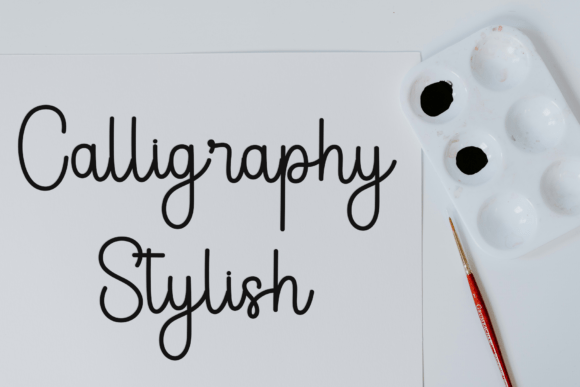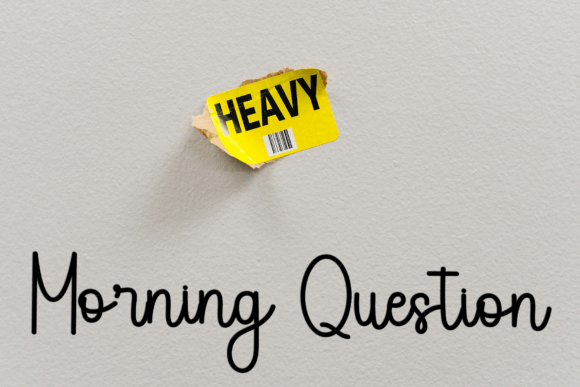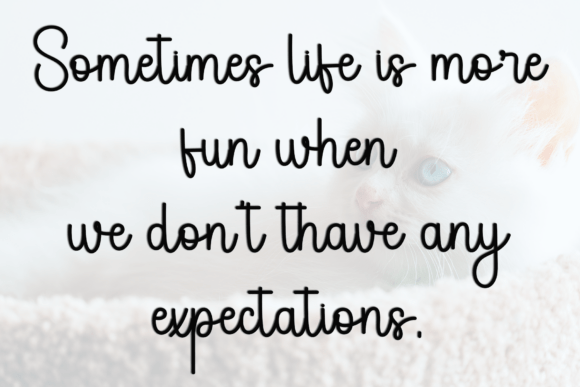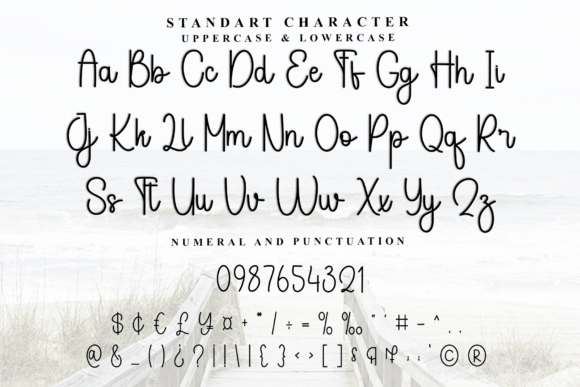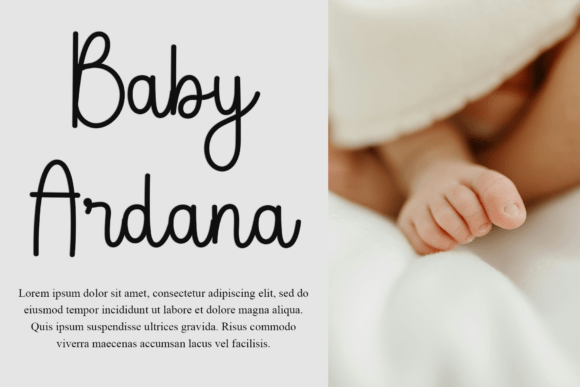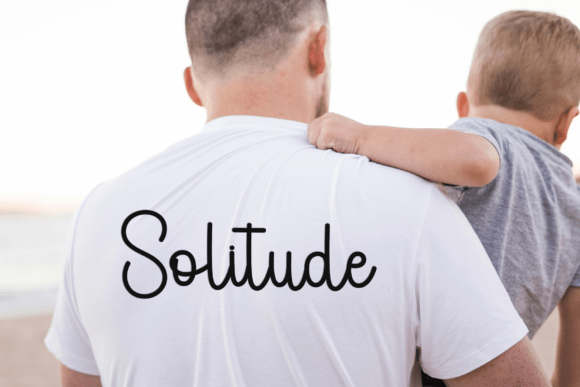
Introduction to Beach Side Font
Beach Side is a lovely and timeless handwritten font.
Key Features of Beach Side Font
Why Choose Beach Side Font?
Beach Side Font offers exceptional quality and versatility, making it a valuable addition to your design toolkit. Whether you’re creating for personal projects or commercial use, Beach Side Font delivers professional results.